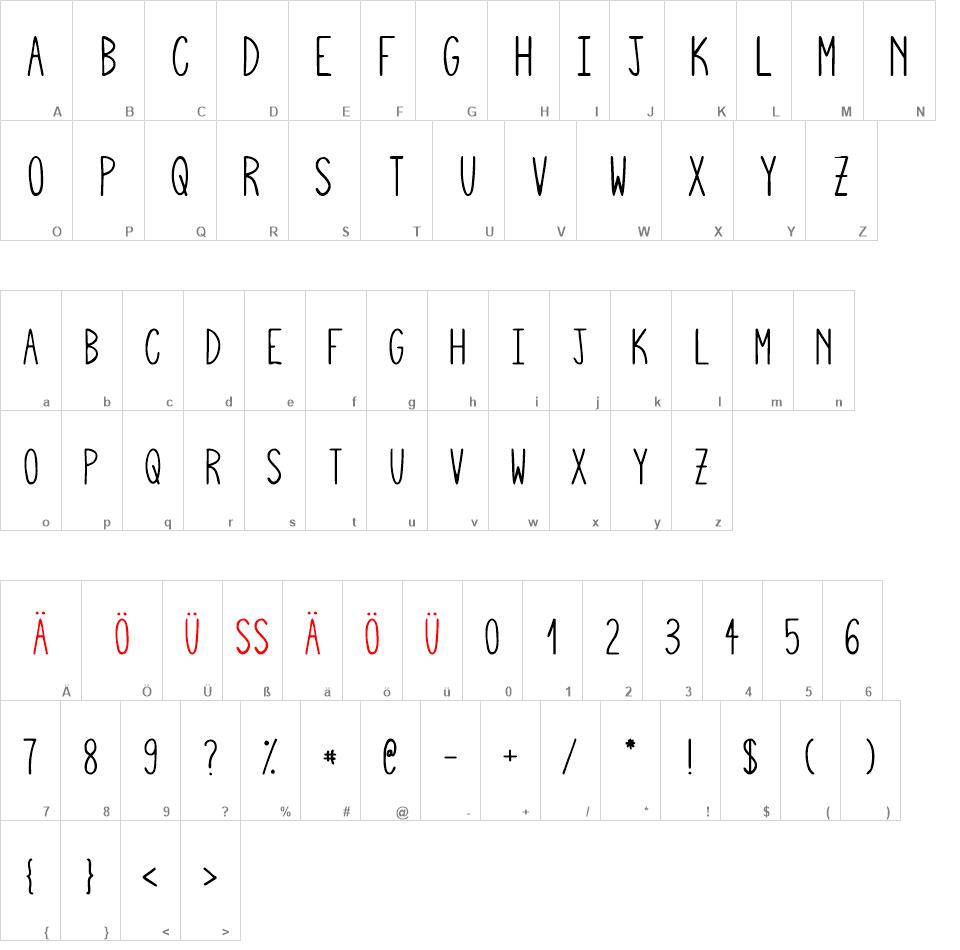
Squiggly Asta
Squiggly Asta font
Squiggly Asta
Squiggly Asta is a hand-drawn, all-caps font with 227 glyphs including:
>> A-Z | 0-9
>> Punctuation marks
>> Accents.